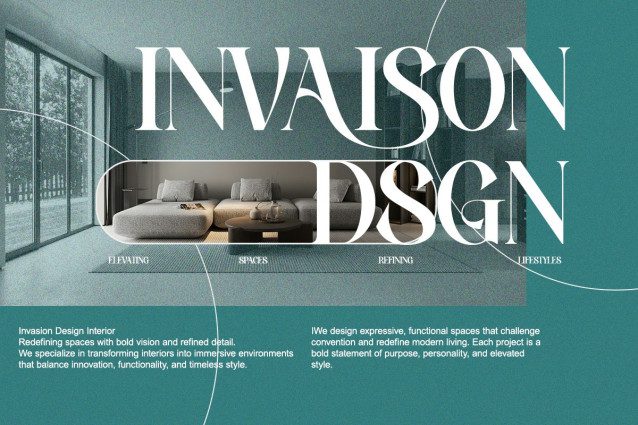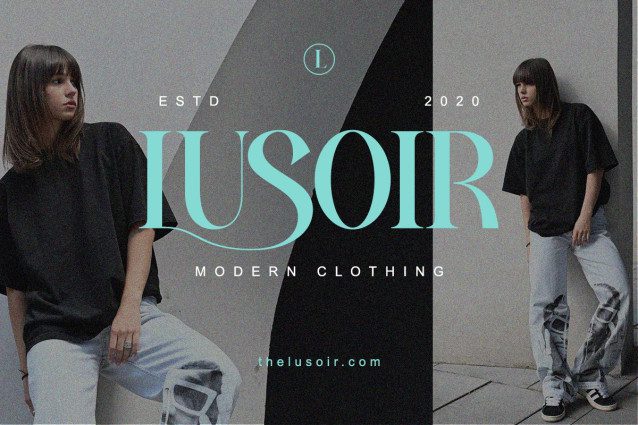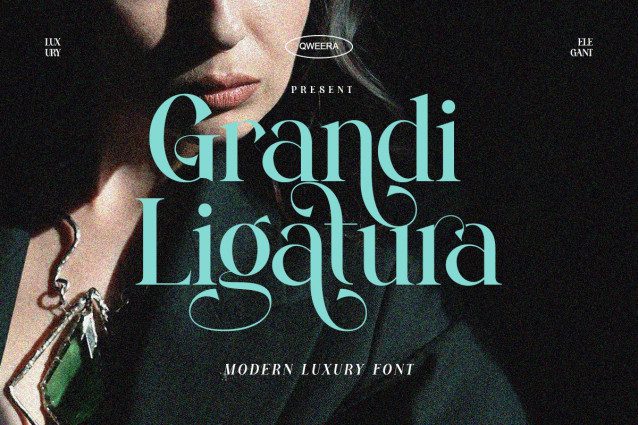
Grandi Ligatura Font is a stylish serif font designed to elevate your visual identity with luxurious curves and elegant ligatures.This typeface blends classic editorial style with modern twist through intricate stylistic alternates and graceful ligature combinations. It radiates confidence and sophistication, making it a flawless choice for premium branding, high-fashion campaigns, beauty packaging, and bold editorial titles.